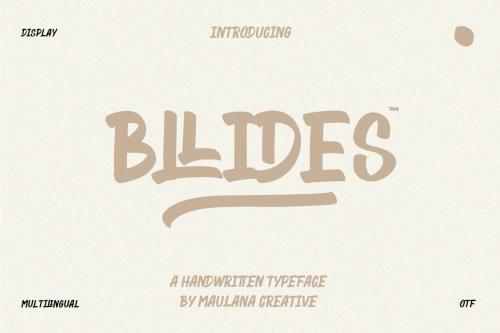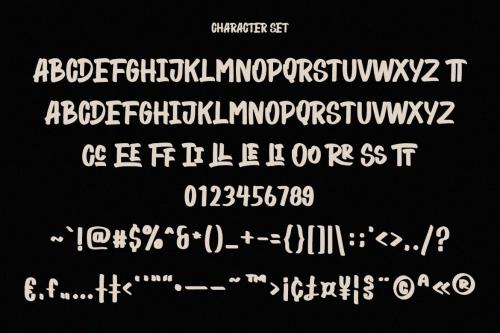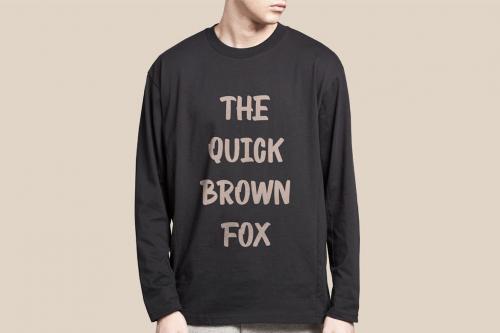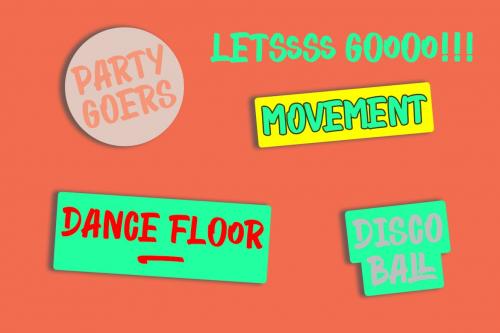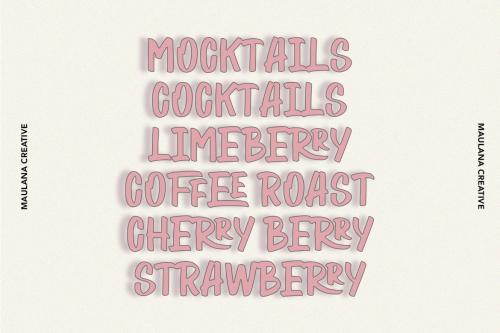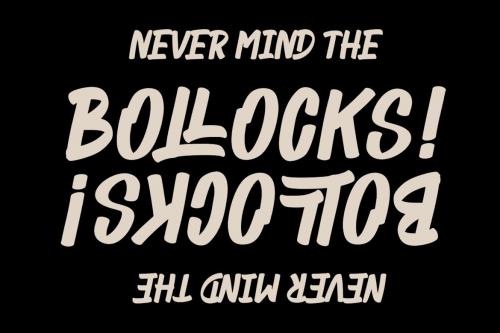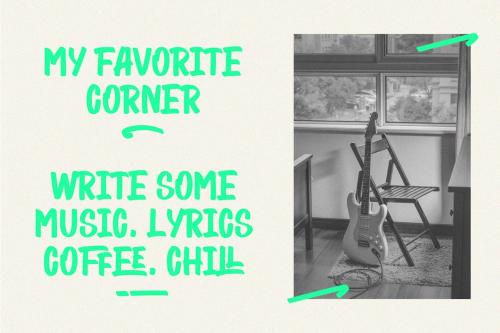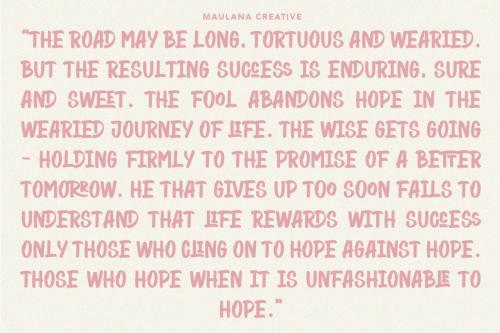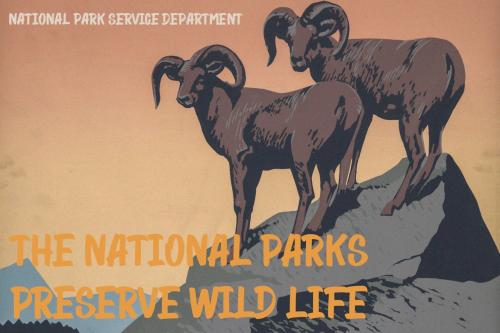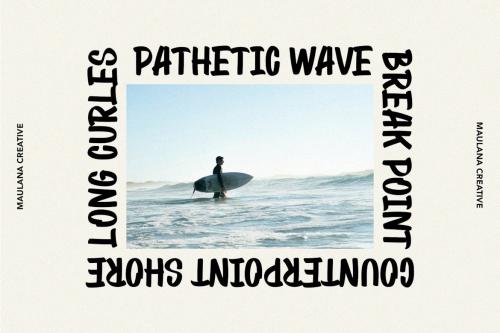
Bllides Handwritten Typeface Font
Bllides is a Handwritten Marker font casual and clean stoke font with extra swash alternate and opentype features Ligatures inspired by the 60's notes letterform. It support multilingual more than 100+ language. This font is suitable for logo design and any awesome project you create. Make stunning work with Bllides Handwritten font.